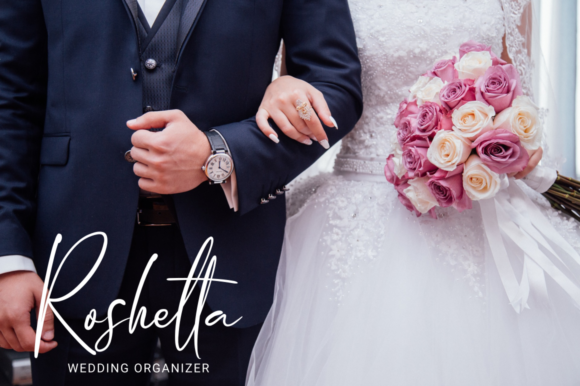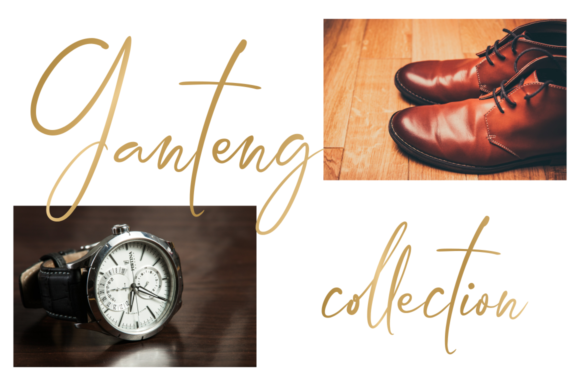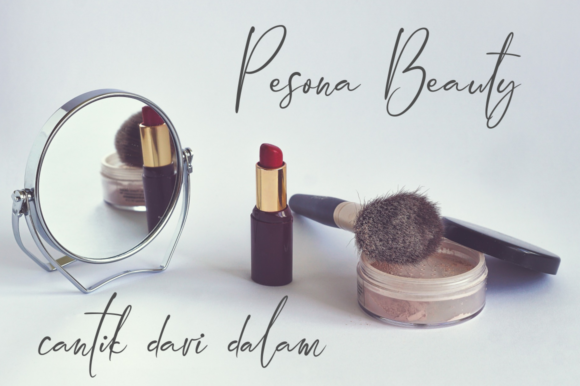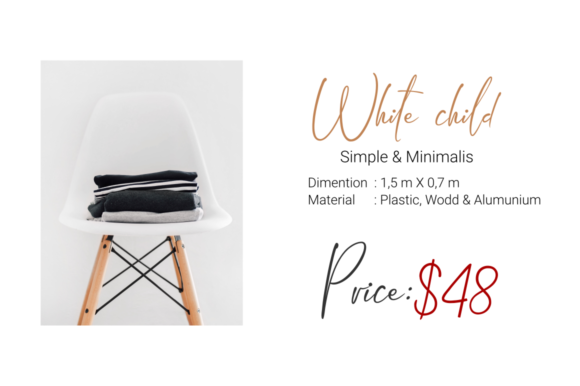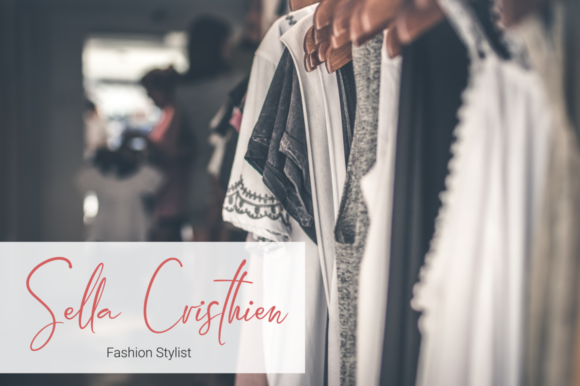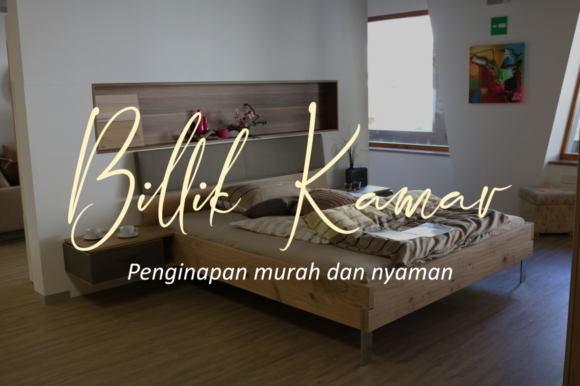
The Arandalle Script Font: A Designer’s Dream Come True
I’ll never forget the time I was working on a branding project for a luxury candle company. My client was specific about wanting a font that exuded elegance and sophistication. I scoured the internet, tried out countless fonts, but nothing seemed quite right. That was until I stumbled upon the Arandalle Script Font. ✨ It was love at first sight! The classy, handwritten strokes and stylish ligatures instantly captured the essence of the brand. In this article, I’ll share my experience with the Arandalle Script Font, its features, and how to make the most of it in your designs.
- ✨ Elegant and sophisticated design, perfect for luxury brands
- ✅ Stylish ligatures that add a touch of personality to your text
- ⚡️ Highly versatile, suitable for logos, watermarks, ads, and more
- 🎨 Great for creating visually appealing and cohesive brand identities
While the Arandalle Script Font is amazing, there are a few things to keep in mind: 🤔
- ⚠️ Some characters may not work well in very small sizes, so be mindful of legibility
- ⚠️ Limited use of uppercase letters, which can be a bit restrictive for certain designs
The Arandalle Script Font was designed with inspiration from classic calligraphy and modern handwriting. Its creator aimed to craft a font that would evoke a sense of sophistication and elegance, while still feeling approachable and personal. The result is a font that’s perfect for designers looking to add a touch of luxury to their work.
Q: What is the Arandalle Script Font best used for?
A: The Arandalle Script Font is perfect for branding, logos, watermarks, ads, and any project that requires an elegant, sophisticated touch.
Q: Can I combine the Arandalle Script Font with other fonts?
A: Absolutely! The Arandalle Script Font pairs well with many fonts. Experiment with different combinations to find the perfect match for your project.